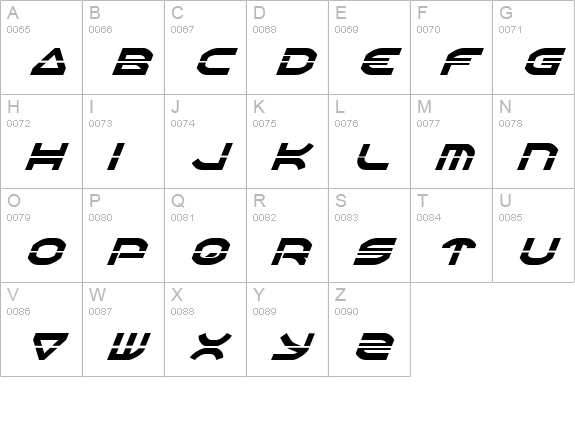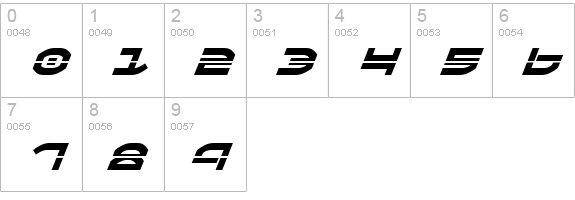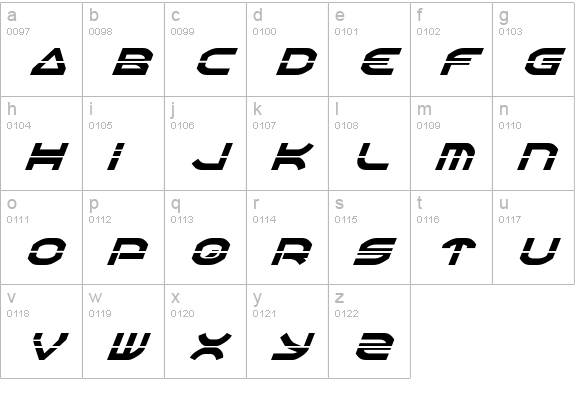
Oberon Laser Italic is a distinctive, italic variant in the Oberon typeface family \xE2\x80\x94 well suited to design and typography projects.
Introducing Oberon Laser Italic font - a sleek and modern typeface that exudes elegance and sophistication. With its unique laser-cut inspired design, this font is perfect for adding a touch of contemporary flair to your projects. The italic styling adds a sense of movement and dynamism, making it ideal for conveying a sense of creativity and innovation. What sets Oberon Laser Italic font apart is not only its eye-catching design but also its versatility. Whether you're designing a logo, creating a poster, or crafting a website, this font will make your text pop and stand out from the crowd. And the best part? Oberon Laser Italic font is available for free download at FontsMarket.com. Simply head over to the website to get your hands on this stylish typeface and start using it in your projects today. Don't miss out on this fantastic opportunity to elevate your designs with the striking Oberon Laser Italic font.